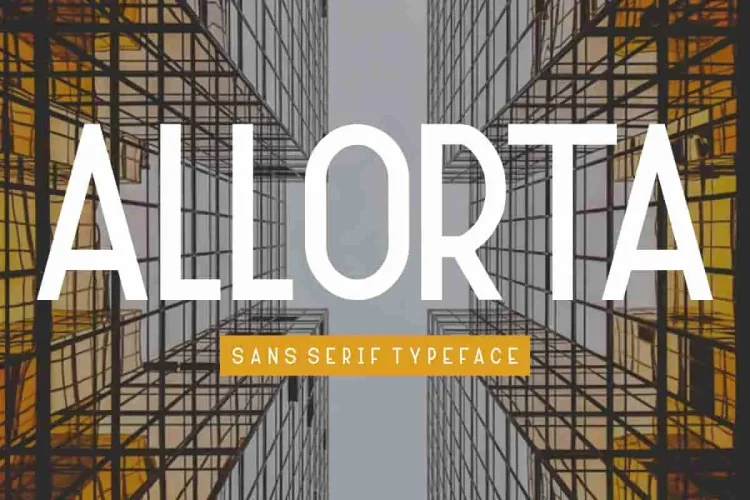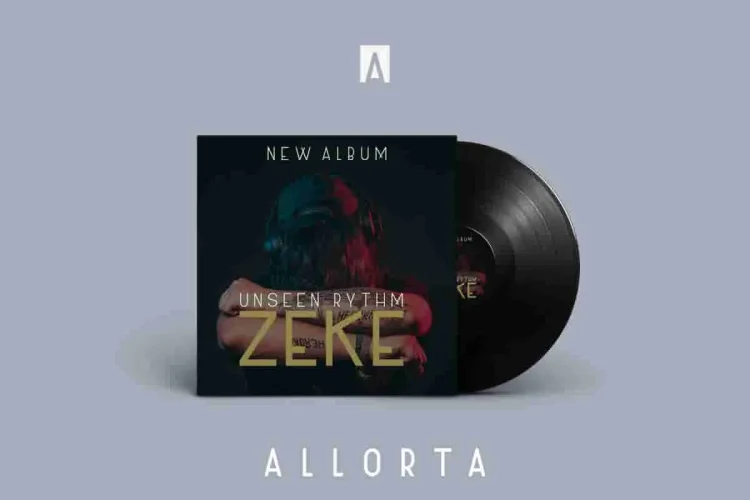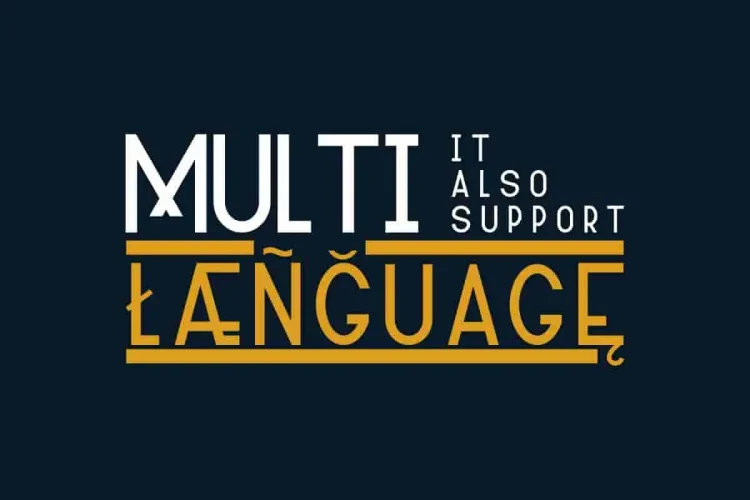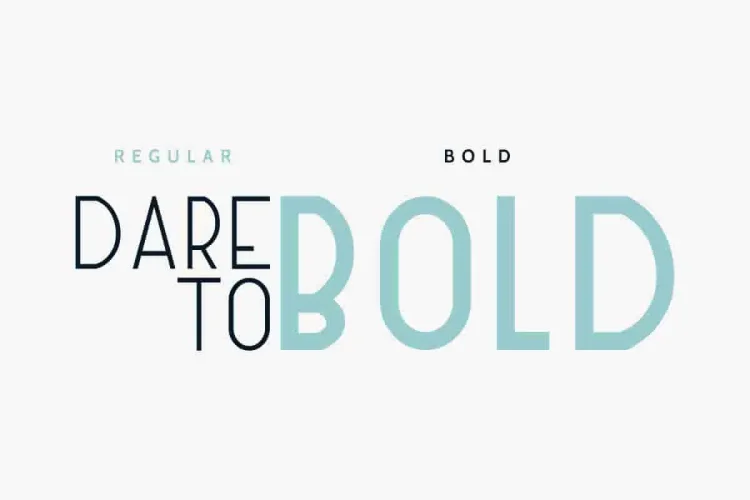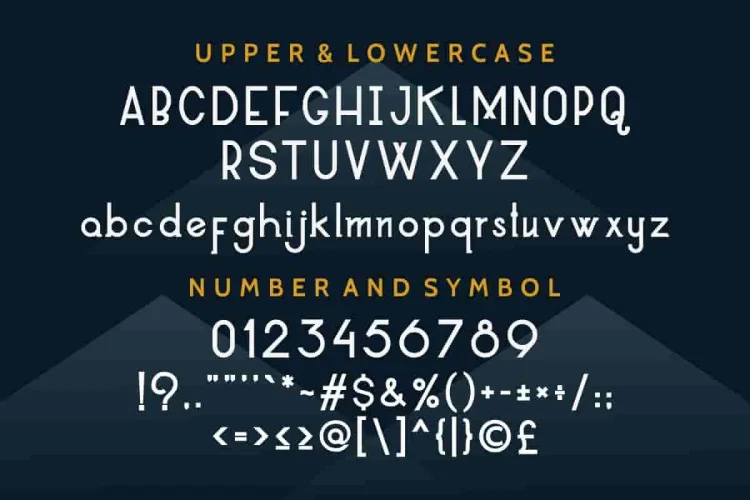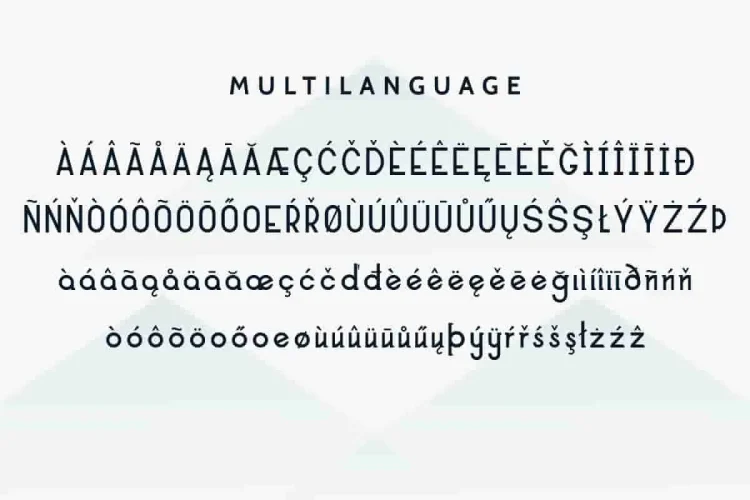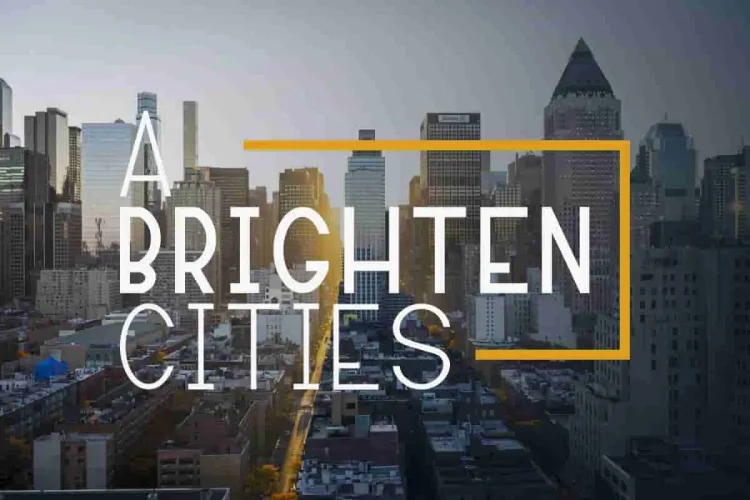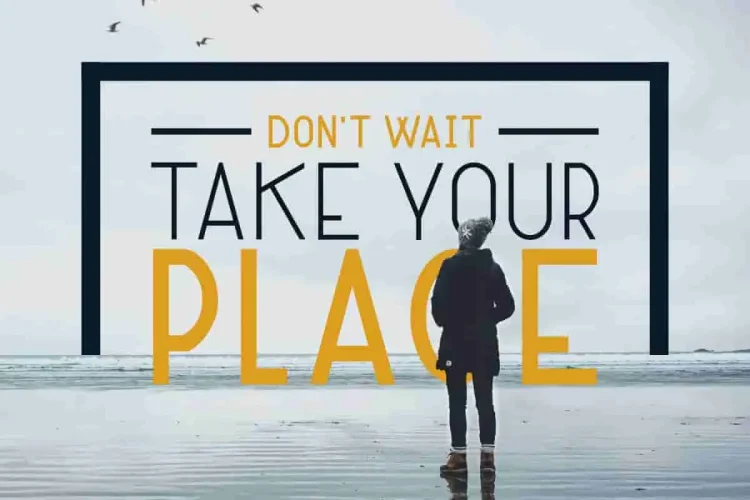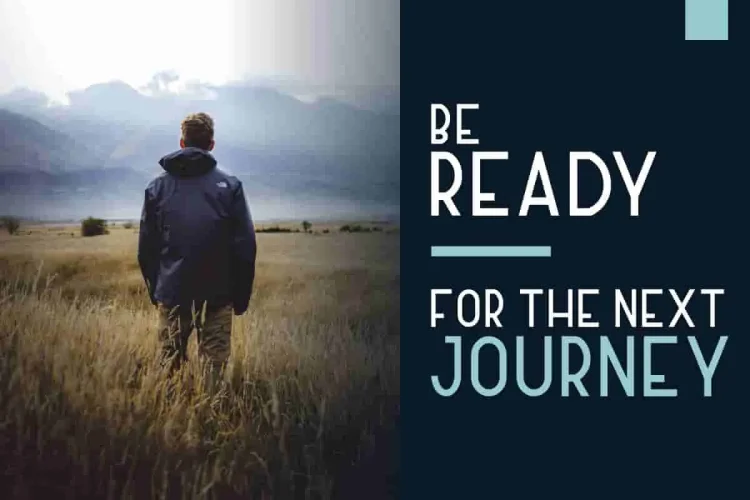
Allorta Elegant Sans Font
Hi Everyone! After much anticipation, She is back! Allorta. This is a modern minimalist yet elegant sans display style font. Designed with clarity and class in mind, it offers a refined touch to any project. It effortlessly fuses modern minimalism with bold elegance. As a result, it’s ideal for branding, editorial layouts, logo design, and digital projects. Therefore, Allorta delivers impactful visual presence with effortless sophistication.
With two unique weights Regular and Bold, Allorta offers remarkable versatility. Specifically You can use the Regular style for clean, readable text or minimalist compositions.  Meanwhile, for headlines and branding that need to make a statement, Bold adds strength and visual command without losing grace.
• Display Sans Serif with a unique blend of contemporary and elegant styles
• Two weights: Regular & Bold
• Multilingual support – accented characters included
• Perfect for logos, editorial headlines, posters, web design, and more